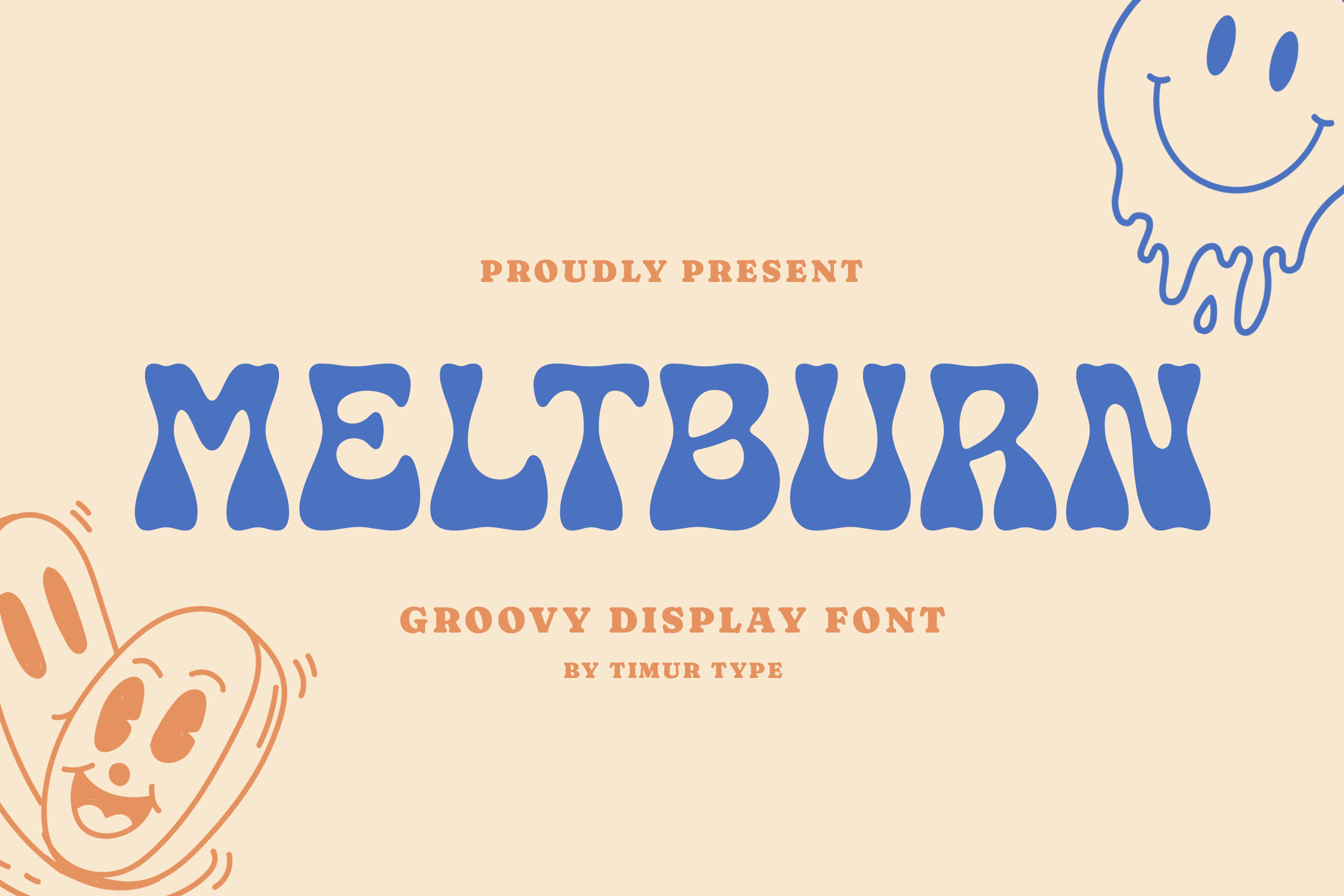
Meltburn - Groovy Display Font
Introduced by Timur type
Proudly Present Meltburn
Meltburn A Handwritten Groovy Display Font that is modern and fresh, and will bring a warm and inviting feel to your business. Take advantage of the fonts and experience the magic for yourself. Meltburn font is perfect for product packaging, branding project, megazine, social media, wedding, or just used to express words above the background.